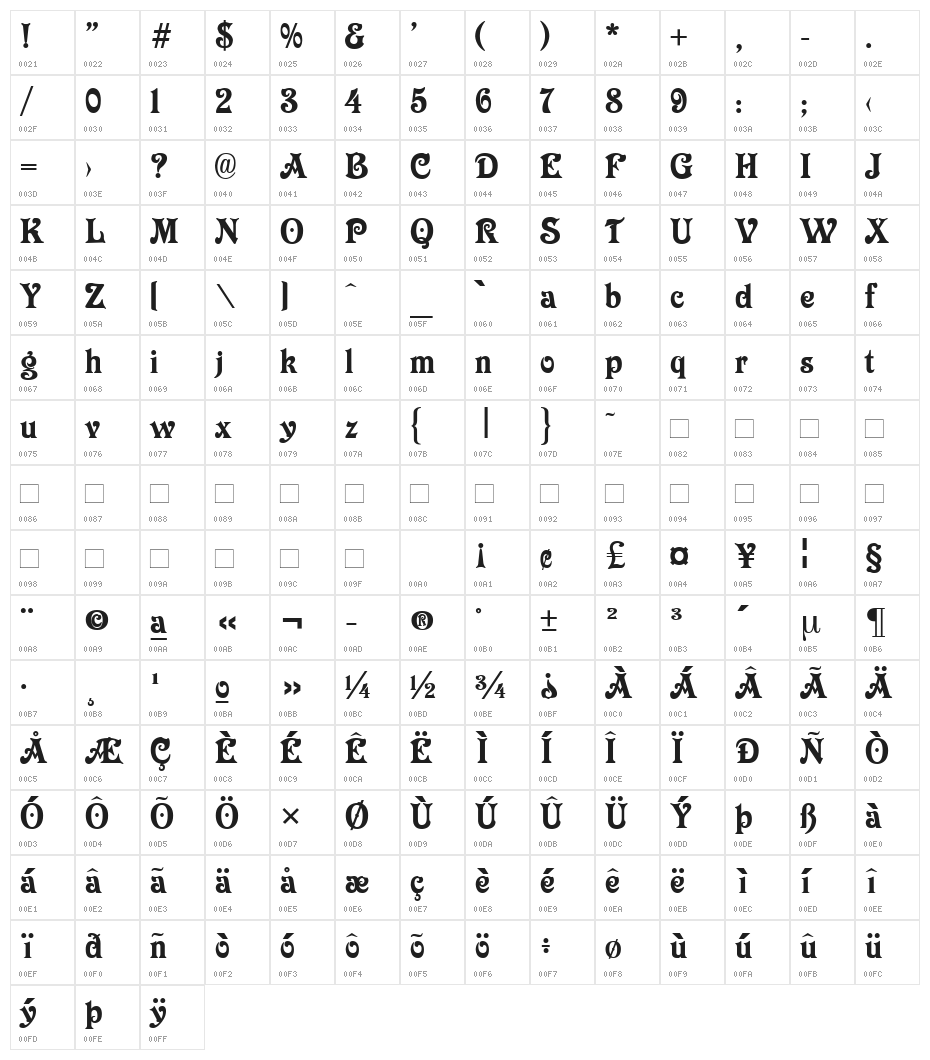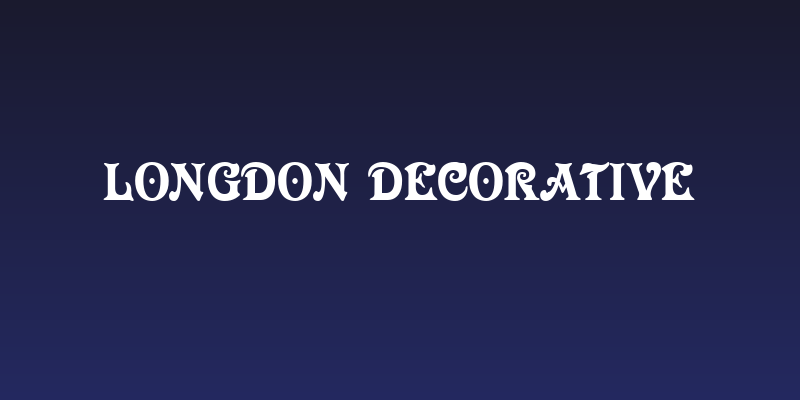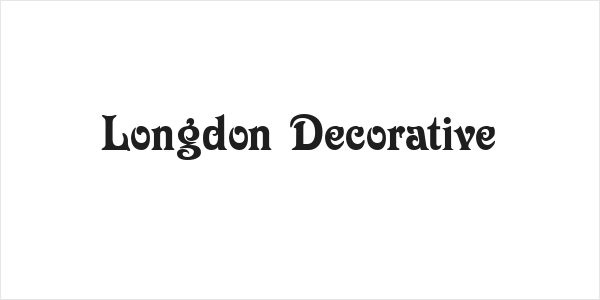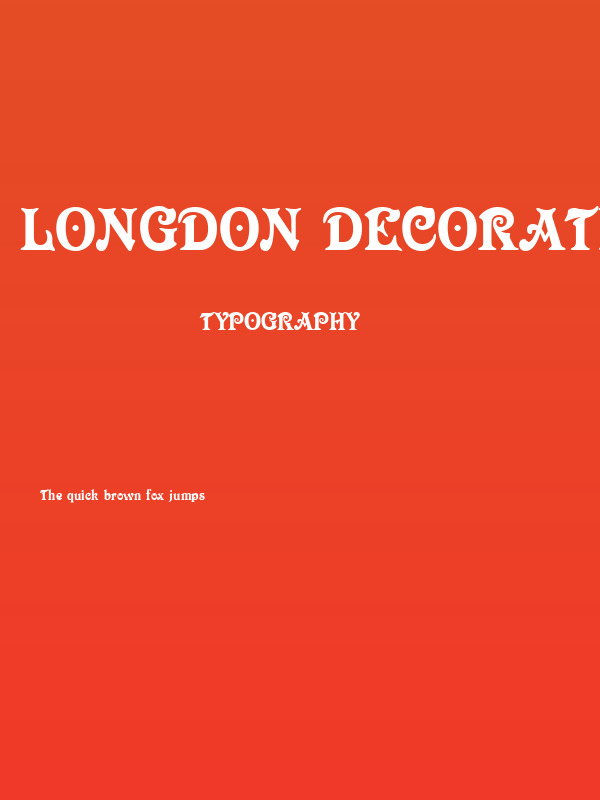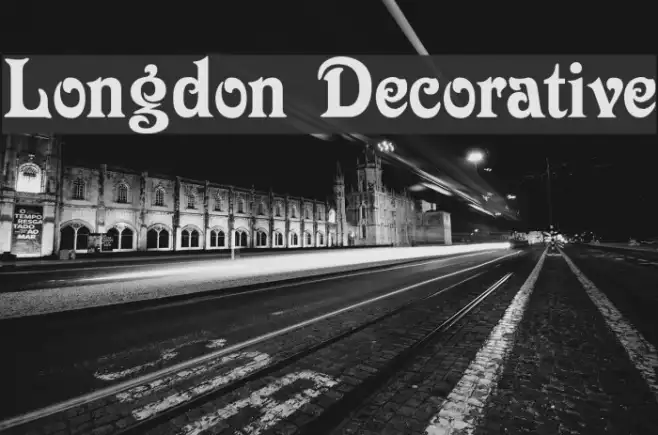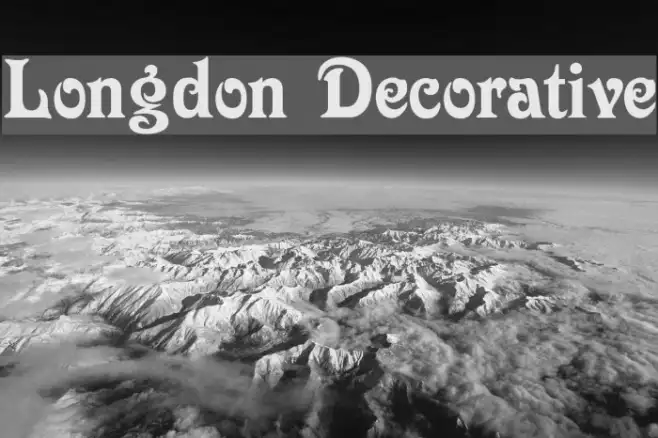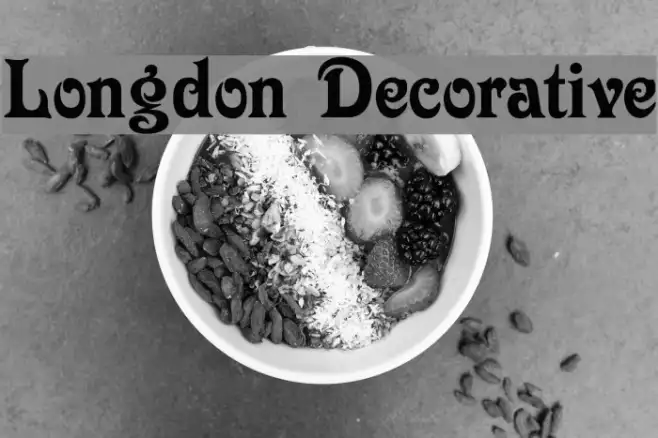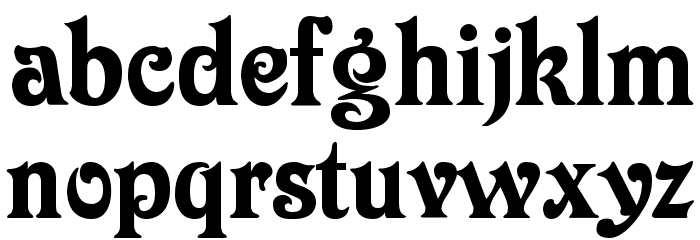
Longdon Decorative Font
Longdon Decorative Description
This font features a bold and decorative style with intricate details and flourishes that give it a unique and ornate appearance. The uppercase letters are particularly elaborate, with sharp serifs and curved elements that add a sense of elegance and sophistication. The lowercase letters maintain a consistent style, offering a harmonious blend with the uppercase. Numbers and special characters are designed with the same decorative flair, making them stand out. The overall design is reminiscent of vintage or classical typography, suitable for projects that require a touch of grandeur and artistic expression.
| Use Case | Headlines, Logos, Decorative text |
| Proposed Projects | Ideal for wedding invitations, vintage posters, branding for luxury products, and decorative signage. |